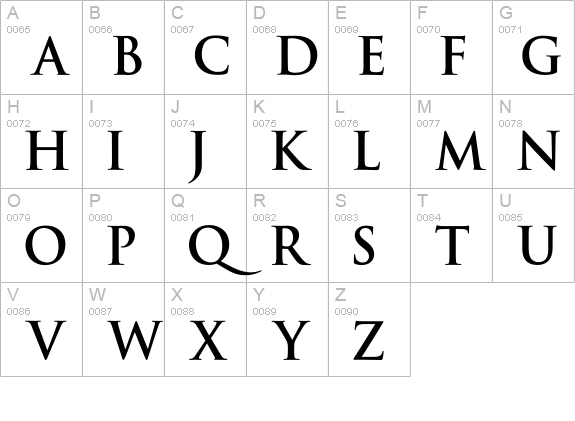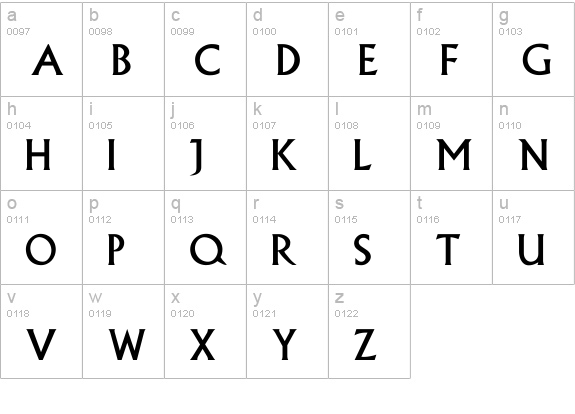
EPISODE I Font Details
Introducing EPISODE I font - a sleek and modern typeface that exudes elegance and sophistication. With its clean lines and stylish curves, EPISODE I is perfect for adding a touch of class to your designs. Whether you're creating branding materials, invitations, or social media graphics, this versatile font is sure to make a statement. Best of all, EPISODE I is available for free download at FontsMarket.com. That's right, you can elevate your projects with this premium font without spending a penny. Don't miss out on the opportunity to enhance your designs with the stunning EPISODE I font - download it today and see the difference it can make!